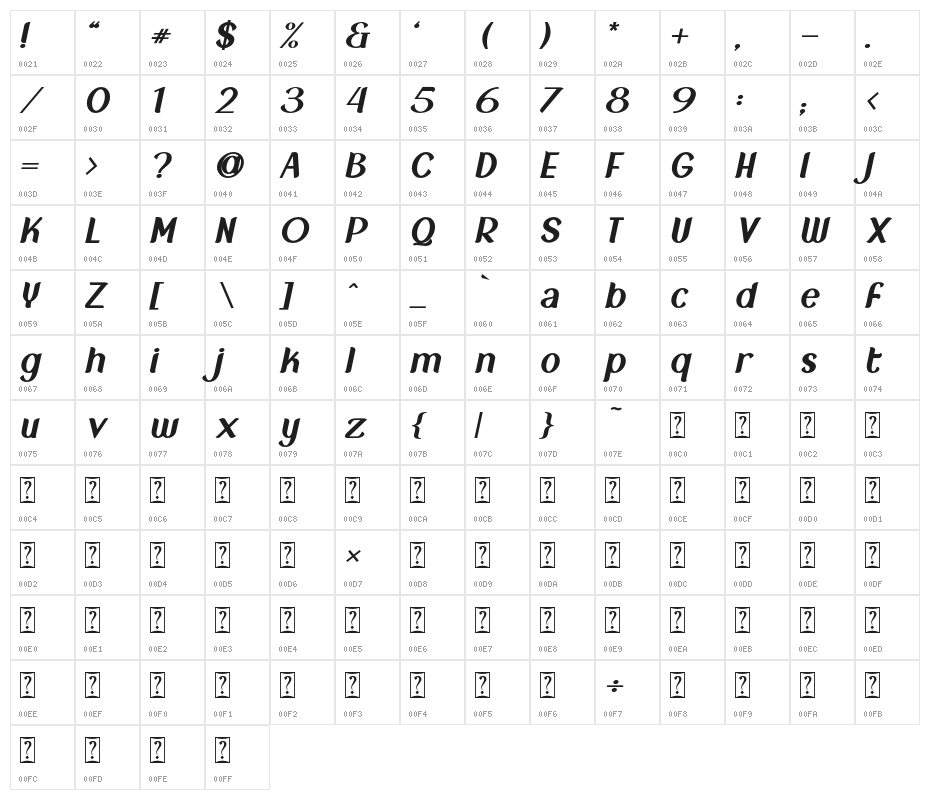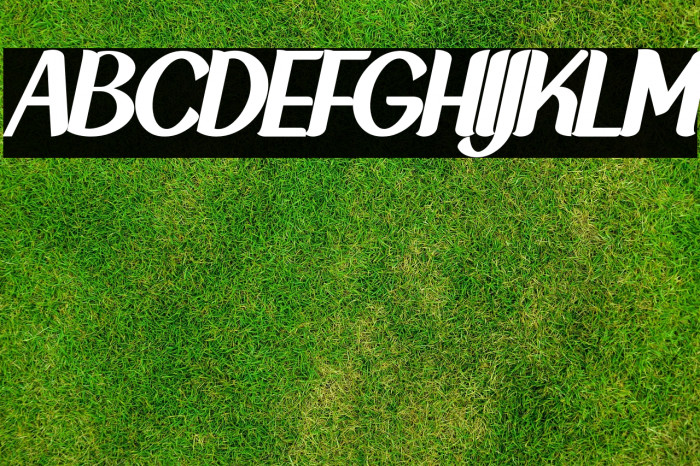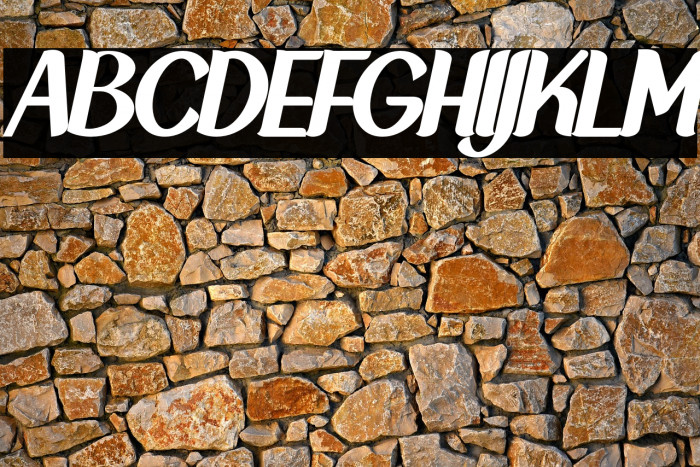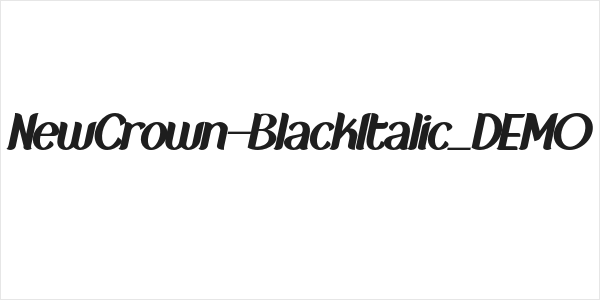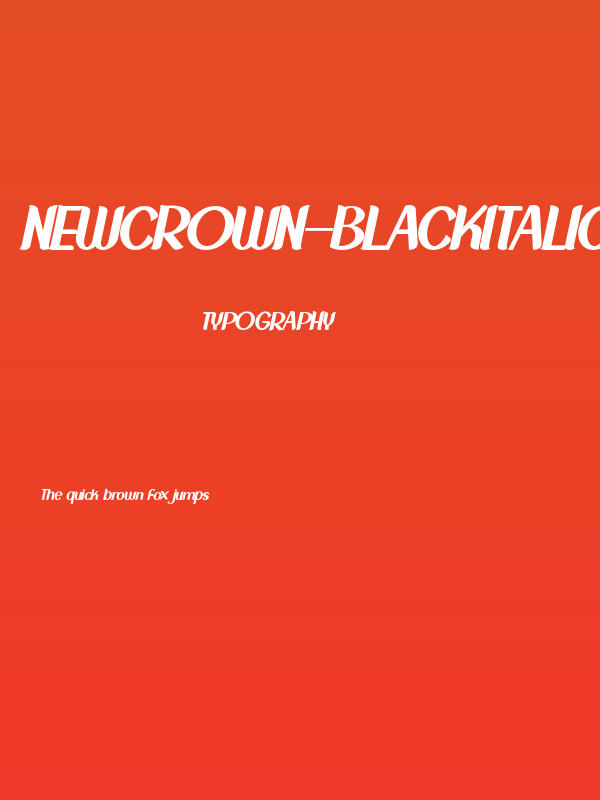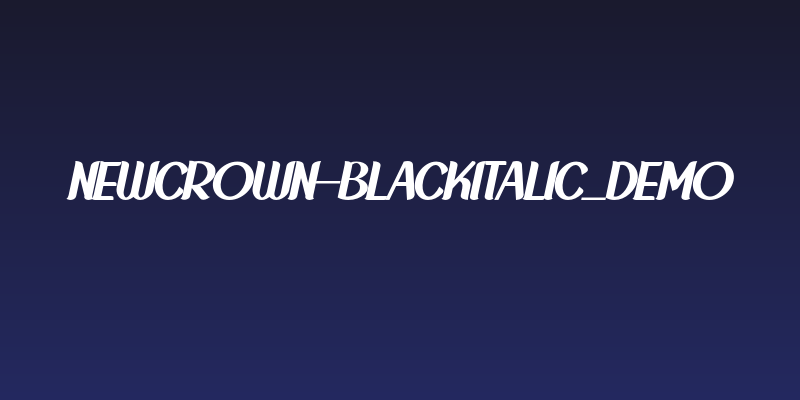
NewCrown-BlackItalic_DEMO Font
NewCrown-BlackItalic_DEMO Description
This font features a bold and dynamic style with a pronounced italic slant, giving it a sense of movement and energy. The characters are thick and robust, with smooth curves and sharp edges that create a striking visual impact. The uppercase and lowercase letters maintain a consistent style, with the lowercase having a slightly more rounded appearance. The numerals are equally bold, ensuring readability and uniformity across different uses. Special characters are designed to match the overall aesthetic, providing a cohesive look. This font is ideal for making a strong statement in any design project.
Proposed ProjectsIdeal for branding, advertising, headlines, and any project requiring a bold, eye-catching typeface.